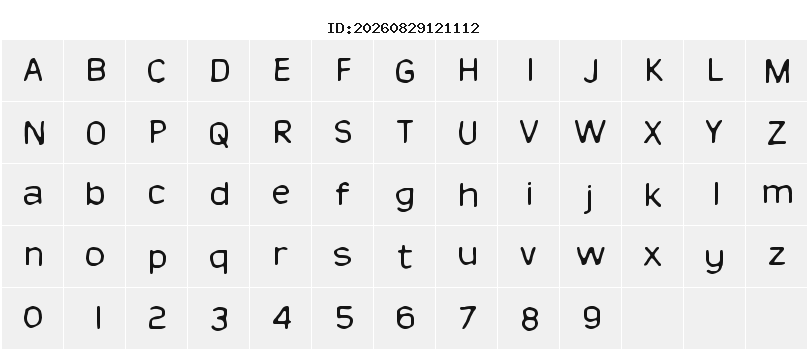
This is nu jazz Preview
• Font Name: This is nu jazz
• Full Font Name: This is nu jazz
• Version: Version 1.00 March 17, 2016, initial release
About This is nu jazz.ttf
This is nu jazz.ttf is a modern, elegant sans-serif font designed for ultimate readability and visual harmony. Perfect for branding, headlines, web design, and print materials.